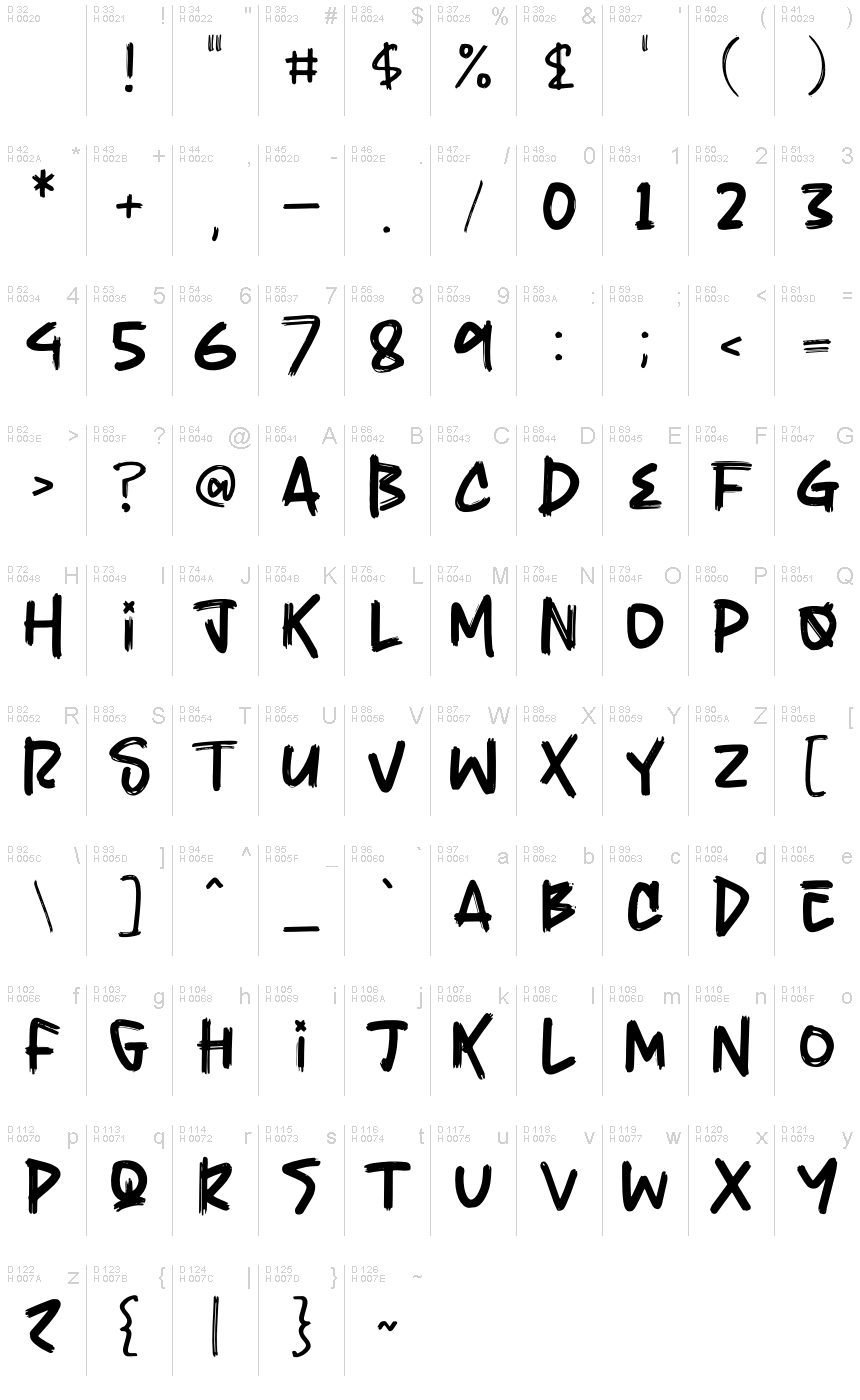
Gatrich emerges as a bold statement piece from the creative minds at Perspectype Studio, presented by Letterena.com. With its brush style strokes that exude dynamism and fluidity, this font captures the spontaneity of hand-painted letters. The thick brushstrokes are reminiscent of an artist's confident hand, giving each character a unique personality and a sense of movement.
The aesthetic appeal of Gatrich lies in its ability to inject life into words as if they've been swept across the canvas with passionate vigor. This font's expressive nature makes it ideal for projects that require an artistic touch or a personal feel, such as book covers, album art, branding materials for boutique businesses, or any design that calls for an impactful visual statement with an intimate touch. Gatrich is not just typography; it's a celebration of artistry in letter form.